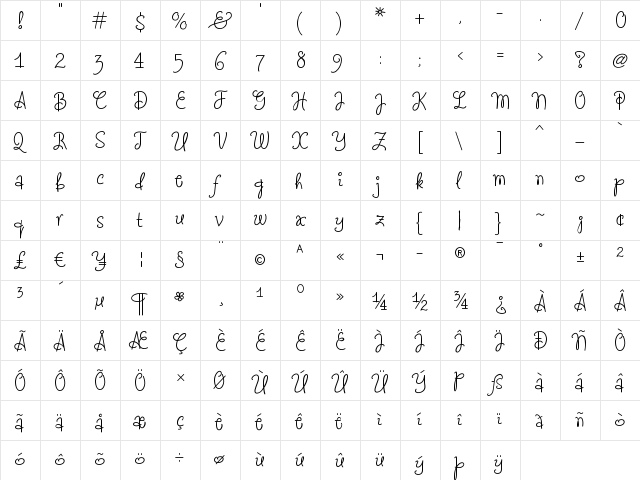
Marzipan Regular
| Foundry | Wilton Foundry |
| Designer | Robbie de Villiers |
Design Context for Marzipan Typeface
Marzipan is a composed and adaptable typeface that performs quietly and consistently across a wide range of design contexts.